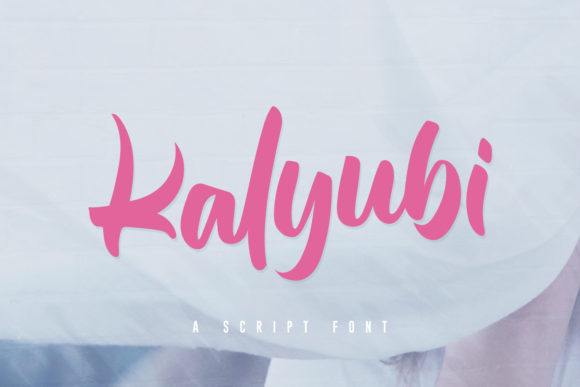
Introducing Kalyubi, the captivating script font that will enchant your designs with its captivating charm! Step into a world where your imagination dances freely, guided by the whimsy and warmth embedded within each graceful glyph.
Kalyubi's lighthearted spirit shines through in its playful curves and endearing imperfections, inviting you to embrace the beauty of the unconventional. Crafted with meticulous attention to detail, this font is a true gem for those who seek to add a touch of whimsy to their creative endeavors.
Whether you're crafting enchanting invitations, designing whimsical branding, or weaving captivating tales through your writing, Kalyubi will effortlessly elevate your work to new heights. Its versatility knows no bounds, making it the perfect choice for a wide range of projects.
We believe that fonts have the power to transform, to evoke emotions, and to tell stories. With Kalyubi, you hold the key to unlocking boundless creative possibilities. Let your imagination soar as you explore the enchanting world of this captivating script font.
**Reasons why you'll adore Kalyubi:**
* Its lighthearted spirit will infuse your designs with a touch of joy and warmth.
* Its unique approach to design will set your creations apart and capture attention.
* Its versatility makes it suitable for a wide range of projects, from playful branding to enchanting invitations.
* Its charm will resonate with audiences, evoking a sense of endearment and connection.
**Experience the magic of Kalyubi today and embark on a creative journey filled with endless possibilities!**